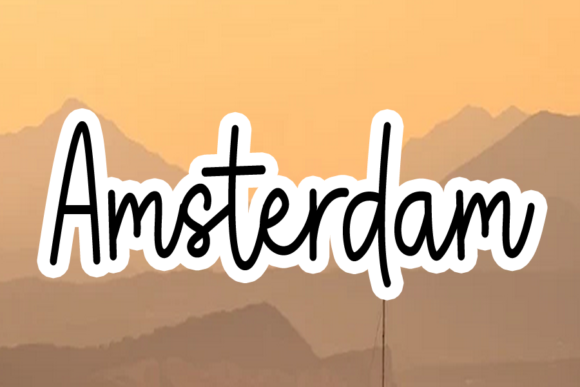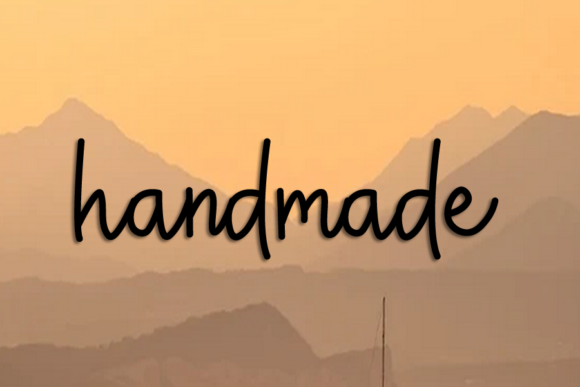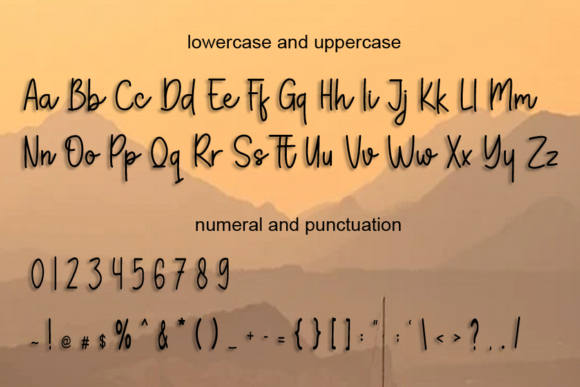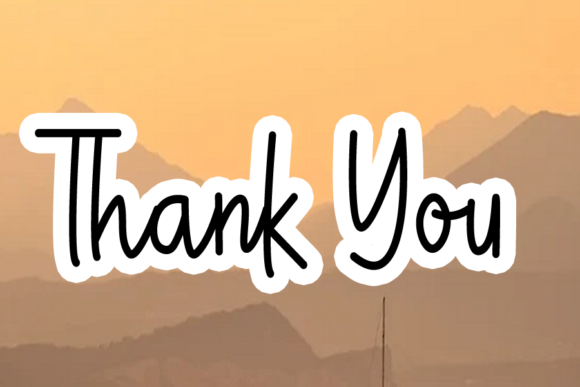
Beyond Font: Elevate Your Designs with Classic Calligraphy Style
Are you tired of using the same old fonts in your designs? Look no further than Beyond Font, a stunning handwritten font with a classic calligraphy style that’s sure to take your creations to the next level. In this article, we’ll dive into the world of Beyond Font, exploring its features, uses, and benefits for designers and crafters.
What is Beyond Font?
Beyond Font is a beautiful, handmade font that embodies the elegance and sophistication of traditional calligraphy. With its smooth, flowing lines and classic style, this font is perfect for adding a touch of luxury to any design. Whether you’re creating greeting cards, wedding invitations, birthday cards, or any other type of project, Beyond Font is sure to make it stand out.
Key Features of Beyond Font
- Classic Calligraphy Style: Beyond Font boasts a timeless, elegant style that’s reminiscent of traditional calligraphy.
- Smooth and Flowing Lines: The font’s smooth lines and curves create a beautiful, fluid look that’s perfect for designs that require a touch of sophistication.
- Handwritten with Love: As a handmade font, Beyond Font has a unique, personal touch that’s sure to make your designs feel more special.
- Versatile: This font can be used for a wide range of projects, from greeting cards and invitations to posters and social media graphics.
Uses for Beyond Font
So, what can you create with Beyond Font? The possibilities are endless! Here are a few ideas to get you started:
- Greeting Cards: Add a personal touch to your greeting cards with Beyond Font’s elegant, cursive style.
- Wedding Invitations: Make your wedding invitations truly special with this beautiful font.
- Birthday Cards: Create custom birthday cards that will make the recipient feel extra special.
- Posters and Flyers: Use Beyond Font to add a touch of sophistication to your posters and flyers.
- Social Media Graphics: Elevate your social media graphics with this stunning font.
So, why should designers and crafters choose Beyond Font? Here are just a few benefits:
- High-Quality Design: This font is designed with high-quality craftsmanship in mind, ensuring that your designs look professional and polished.
- Unique and Exclusive: With Beyond Font, you’ll have access to a unique and exclusive font that’s not commonly used, making your designs stand out from the crowd.
- Time-Saving: This font can save you time and effort in your design process, as you can easily create beautiful, professional-looking designs without starting from scratch.